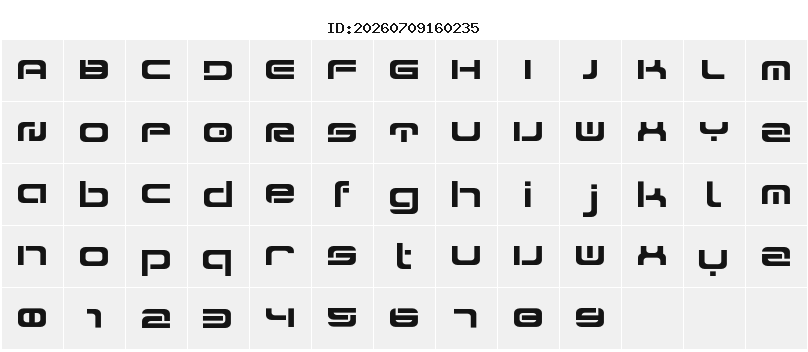
About DOOMED.otf
DOOMED.otf is a modern, elegant sans-serif font designed for ultimate readability and visual harmony. Perfect for branding, headlines, web design, and print materials.